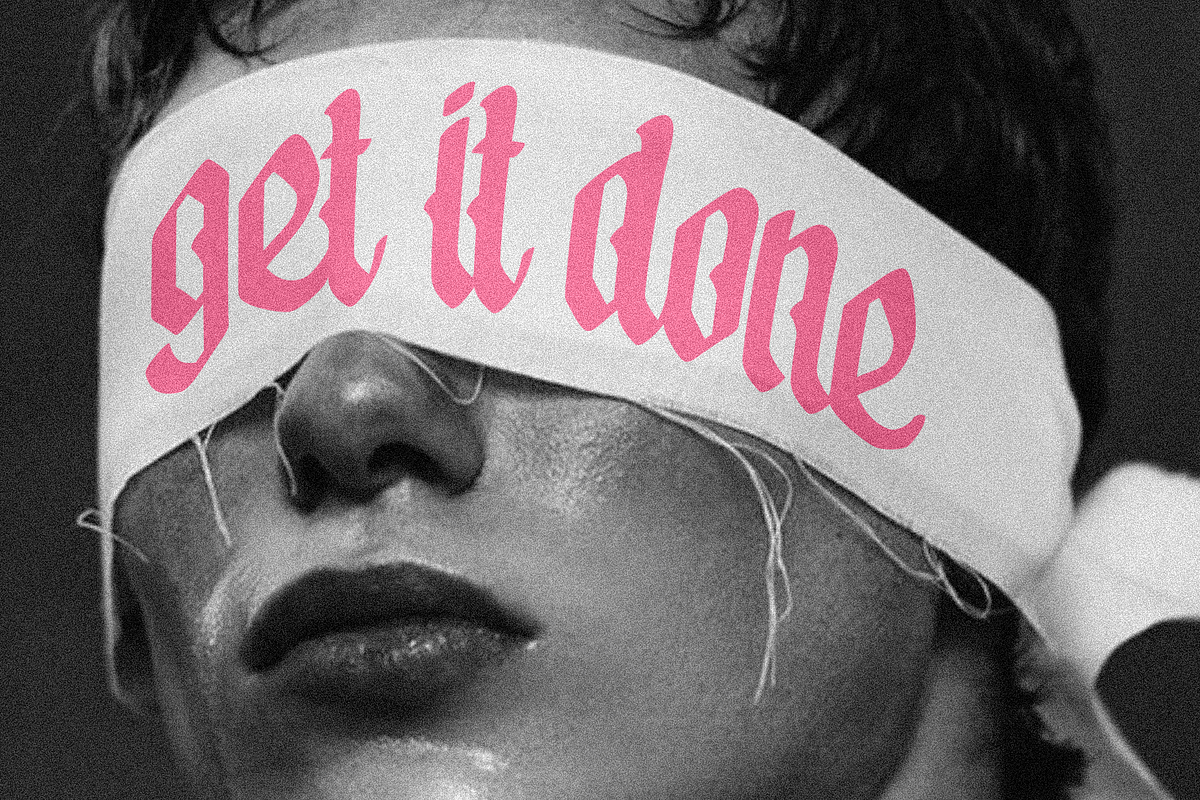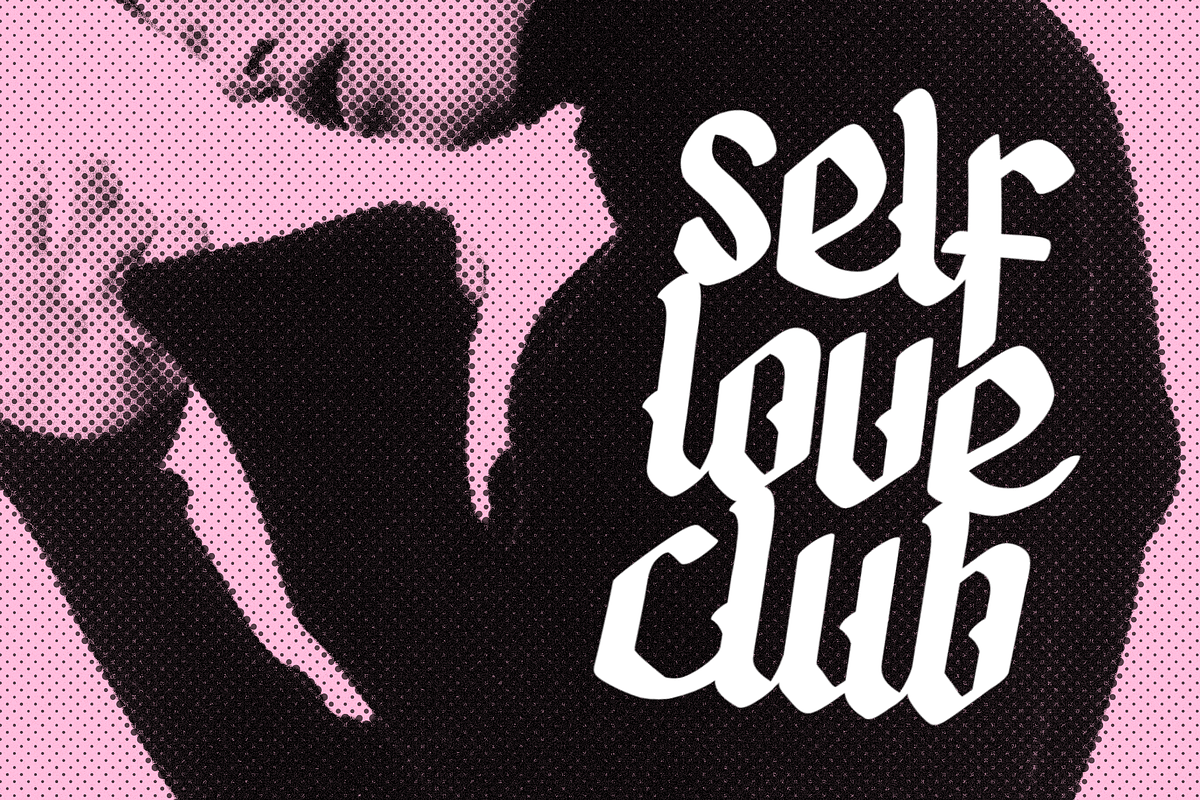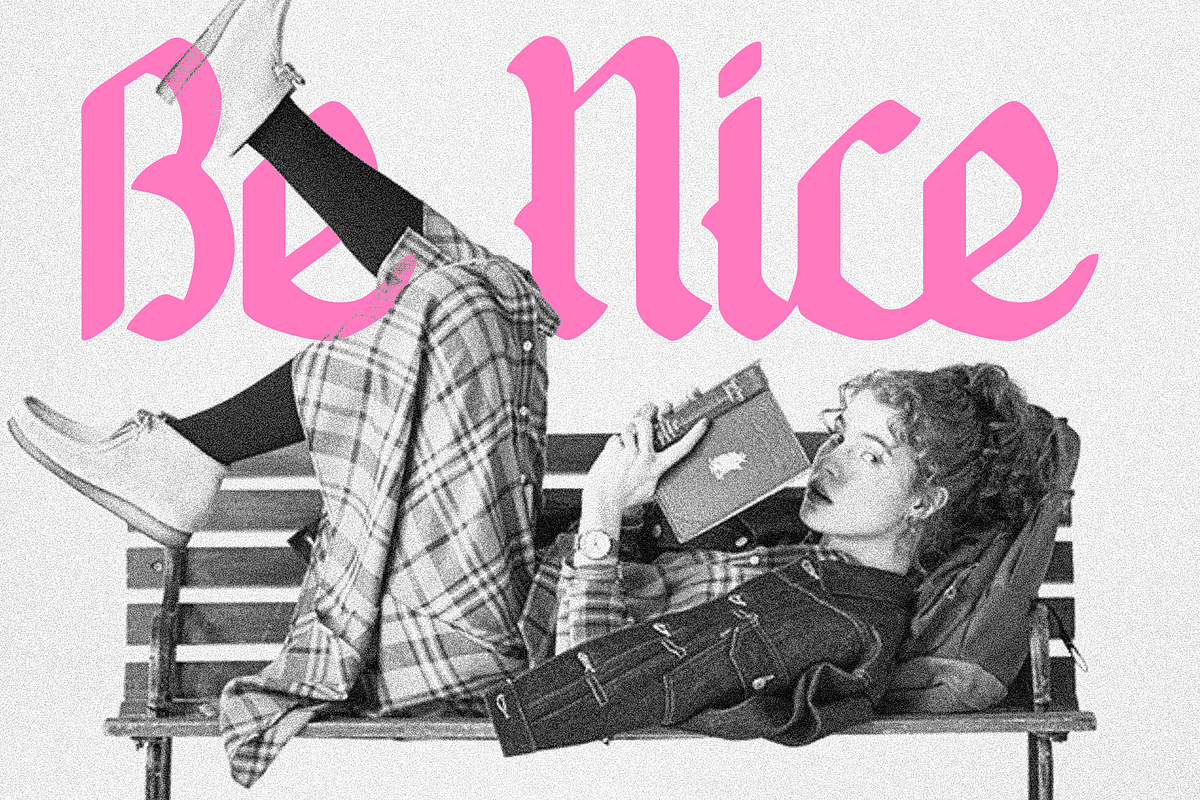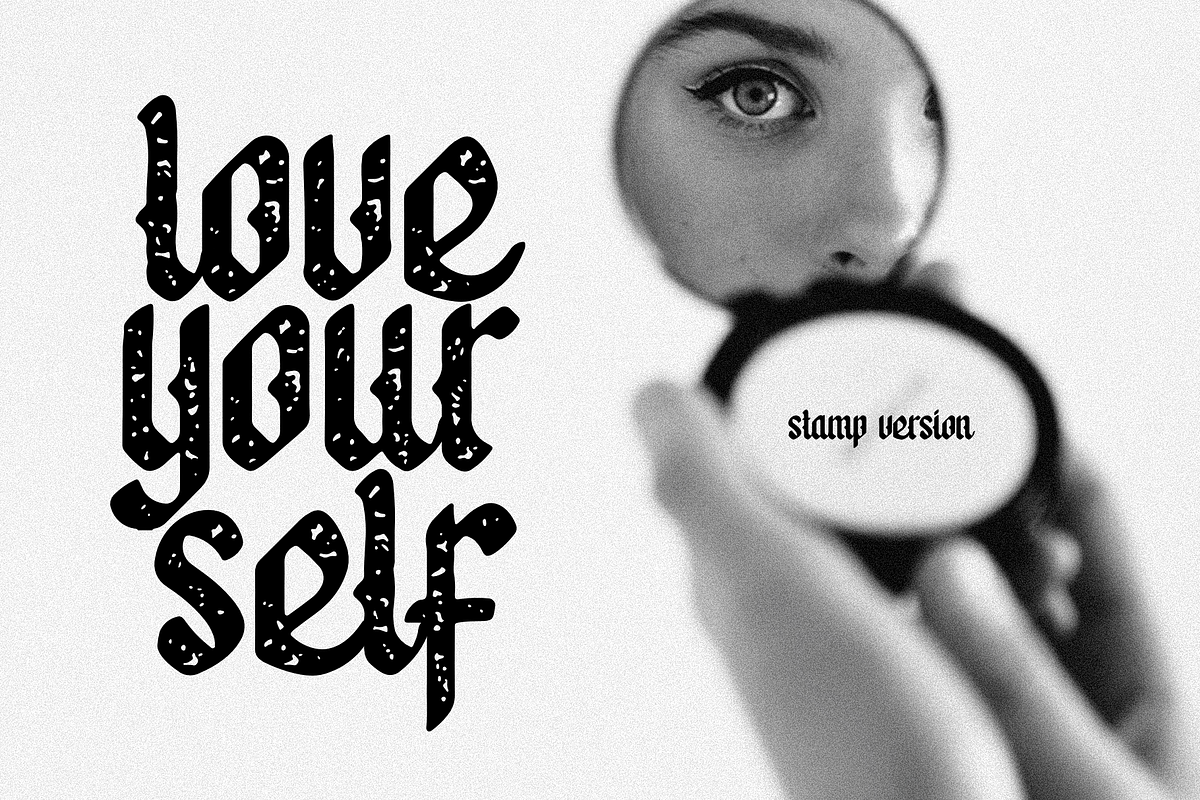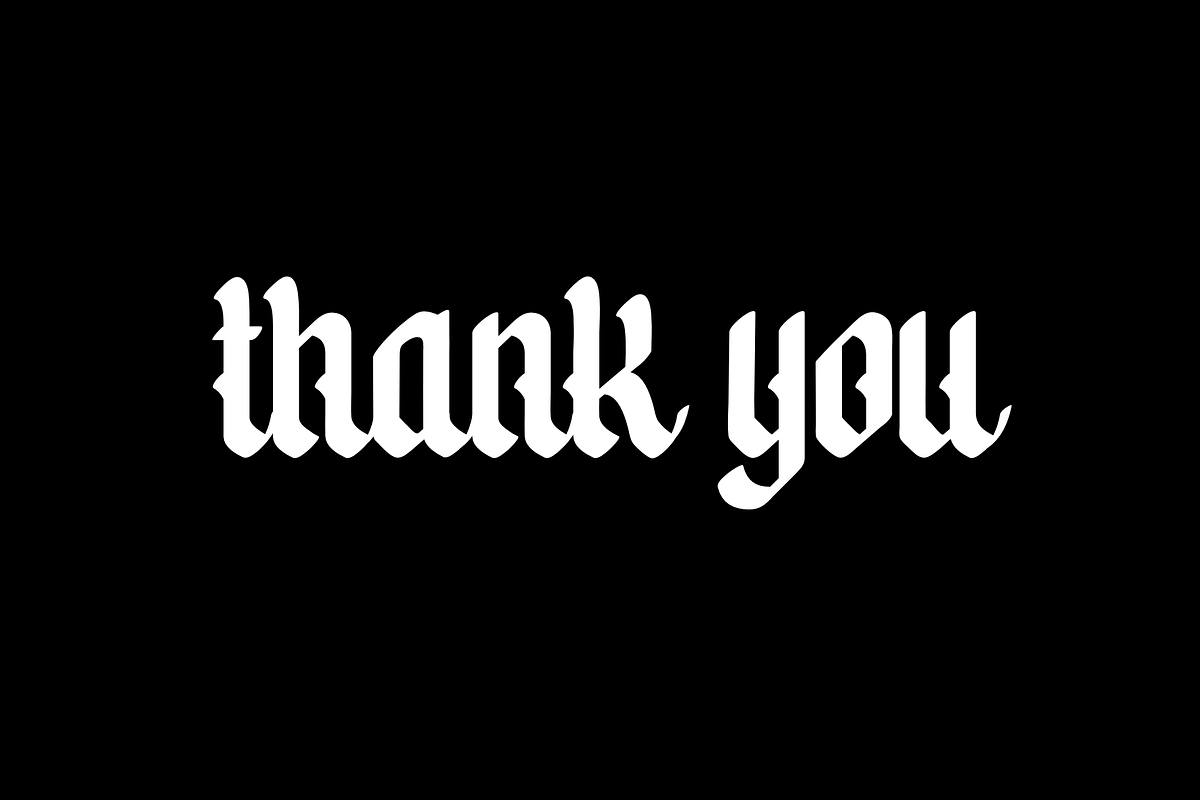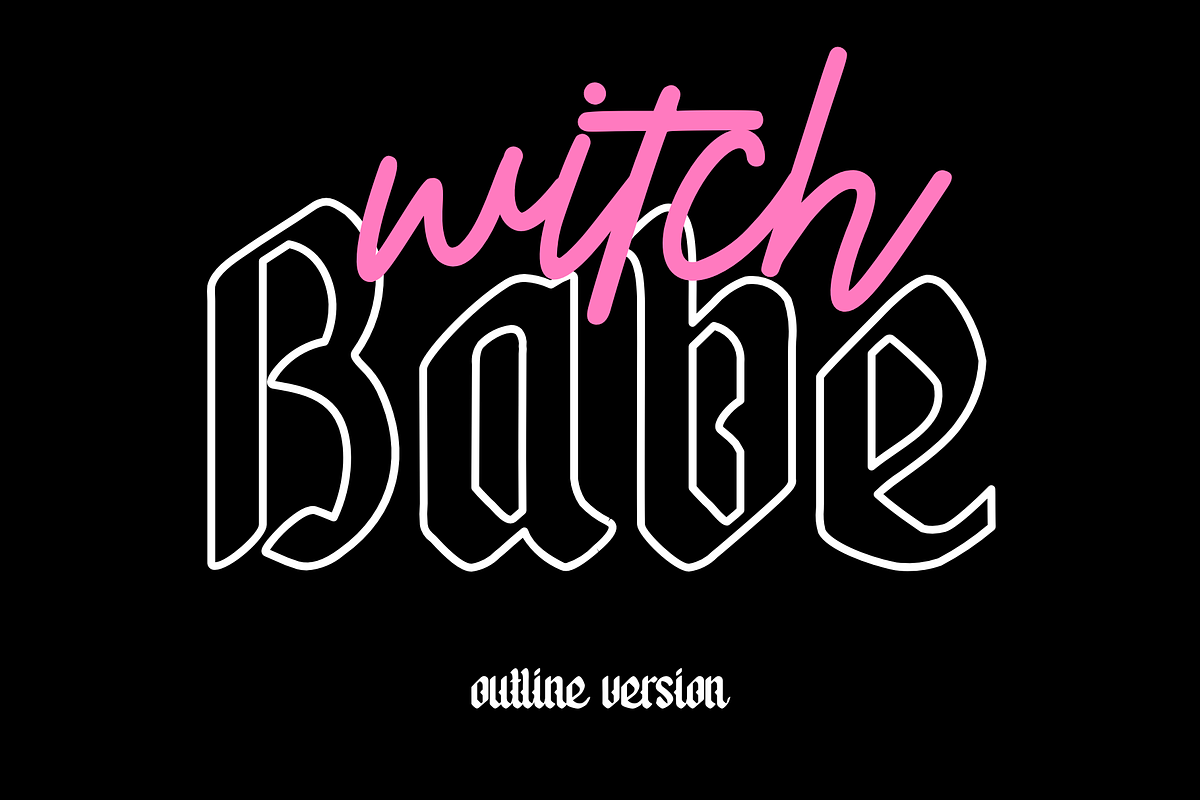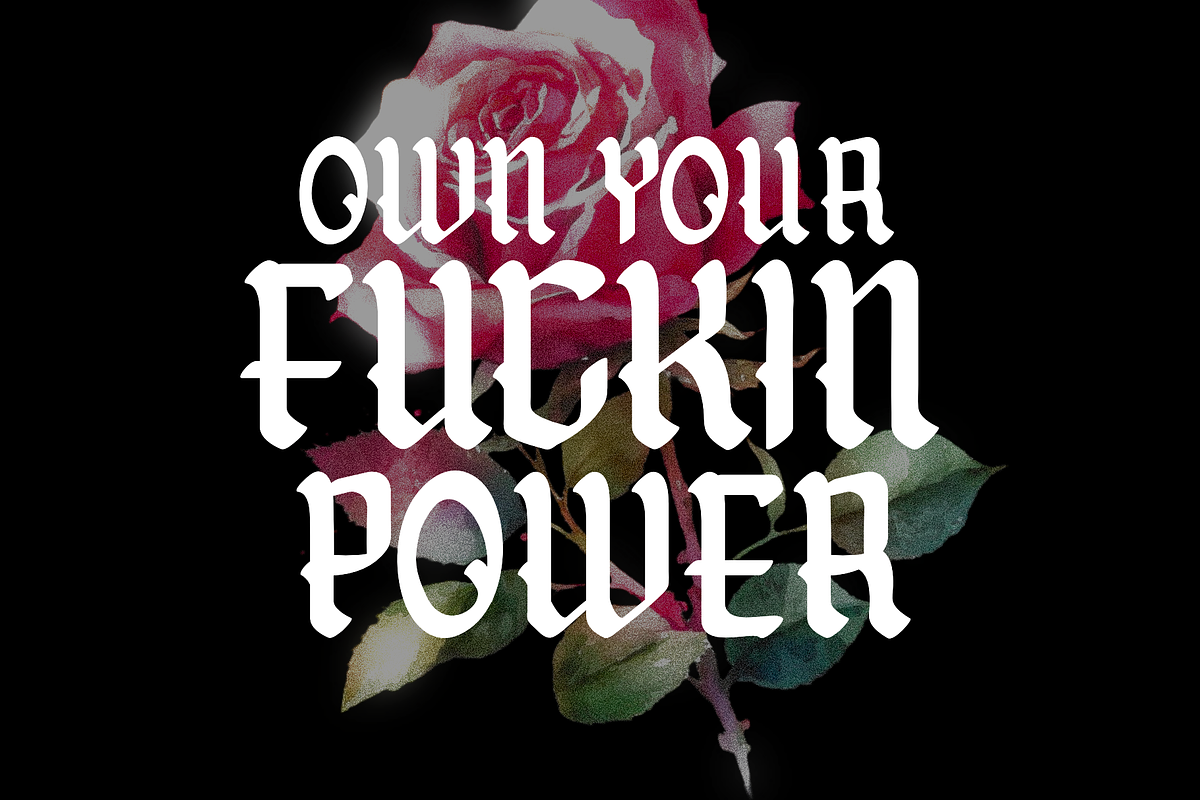
Not Today - Blackletter Script Font
“Not Today" is a stylish and trendy font product that features a bold blackletter script design. The font's unique style is characterized by its sharp, angular edges and intricate embellishments that add a touch of elegance to any project.
The font is perfect for designers looking to add a touch of sophistication to their work, and its versatility makes it suitable for a range of projects, including branding, packaging, posters, and more. Overall, "Not Today" is a great choice for those seeking a bold and distinctive font that will make their designs stand out.